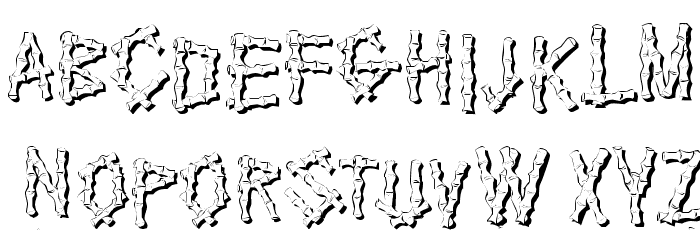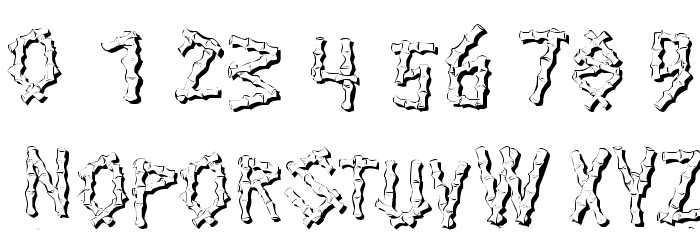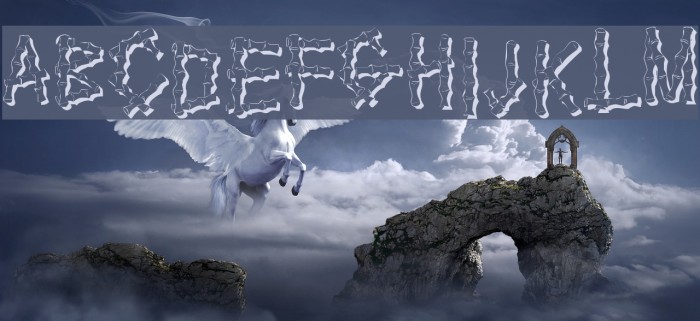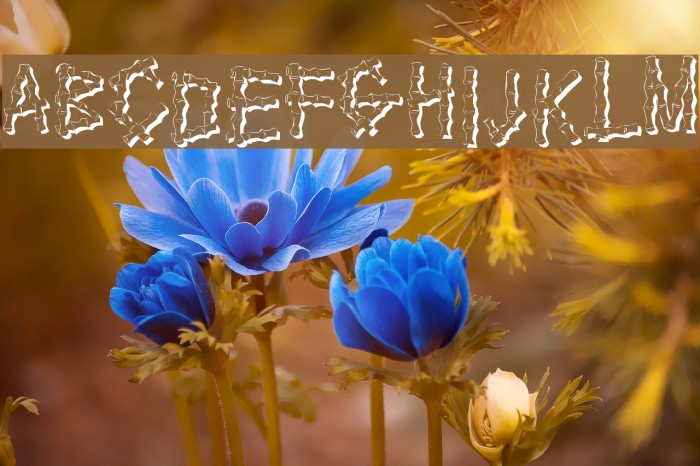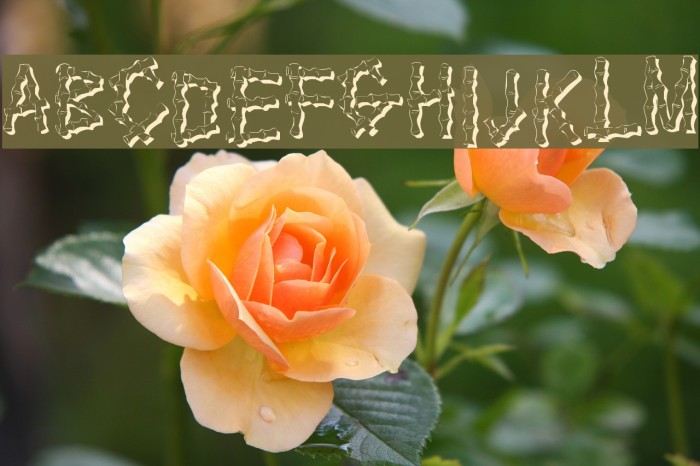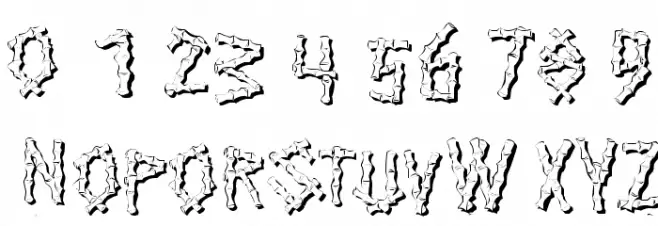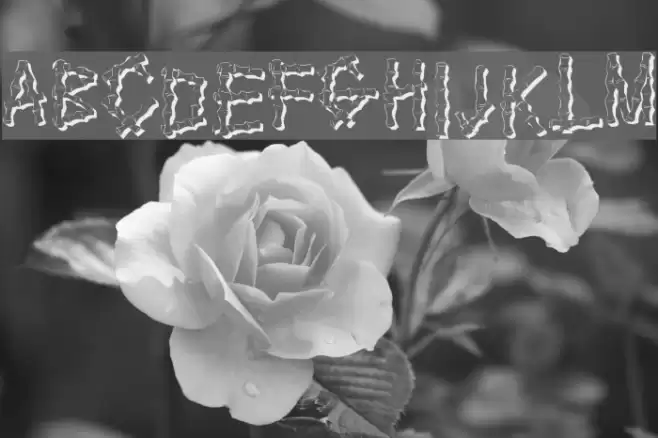
KR Bamboo Font
This font features a unique and playful design, resembling bamboo sticks intricately arranged to form each character. The letters have a three-dimensional appearance, with a shadow effect that adds depth and texture. The style is highly decorative, making it stand out with its organic and natural aesthetic. Each character is crafted to mimic the irregular and segmented nature of bamboo, giving it a handcrafted look. The font maintains legibility despite its complex design, making it suitable for creative projects that require a distinctive and thematic touch.
A decorative font resembling bamboo sticks with a three-dimensional effect.
- Proposed Projects: Ideal for nature-themed designs, eco-friendly branding, Asian-inspired projects, or any creative work that seeks to incorporate a natural and organic feel.